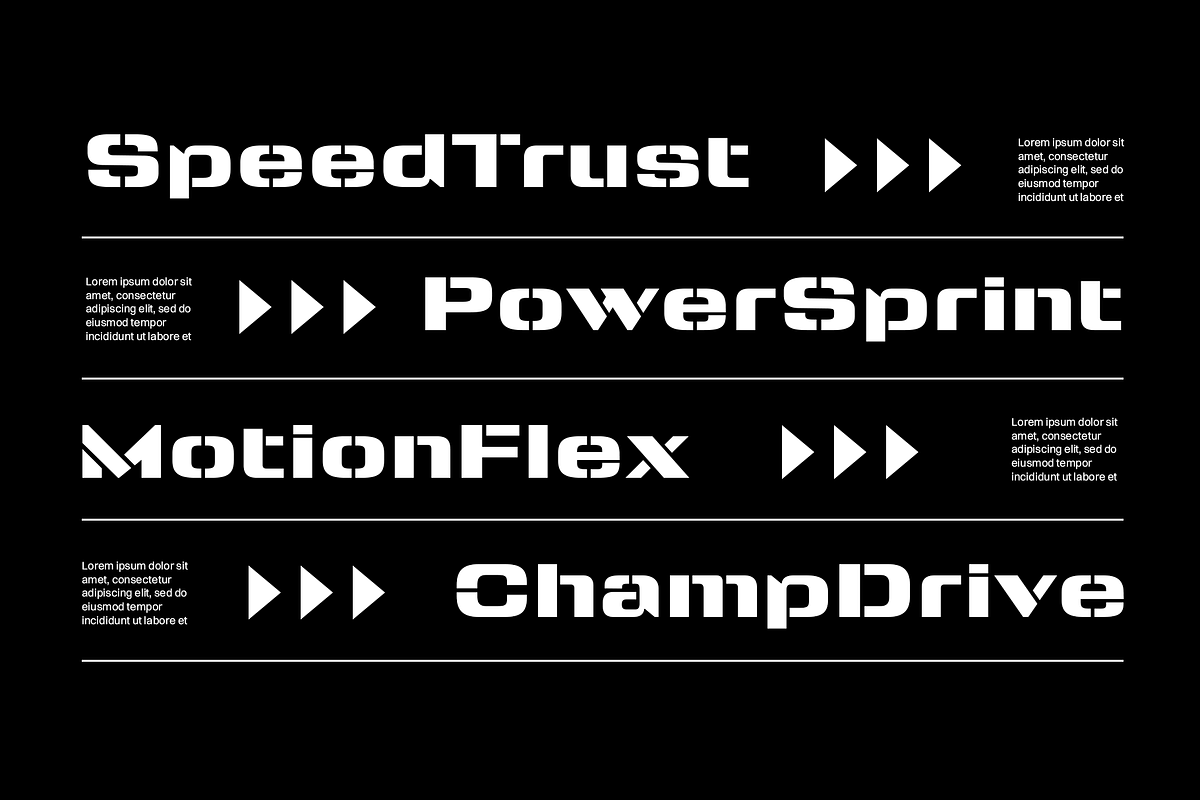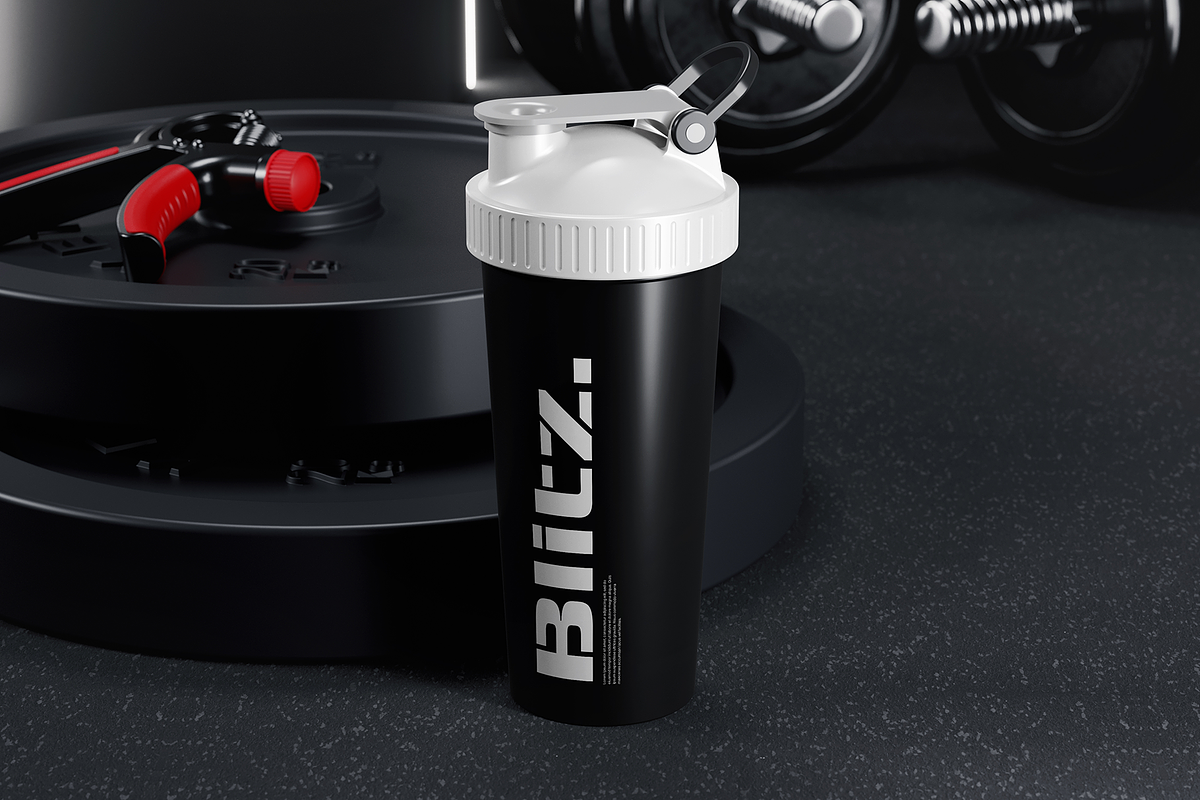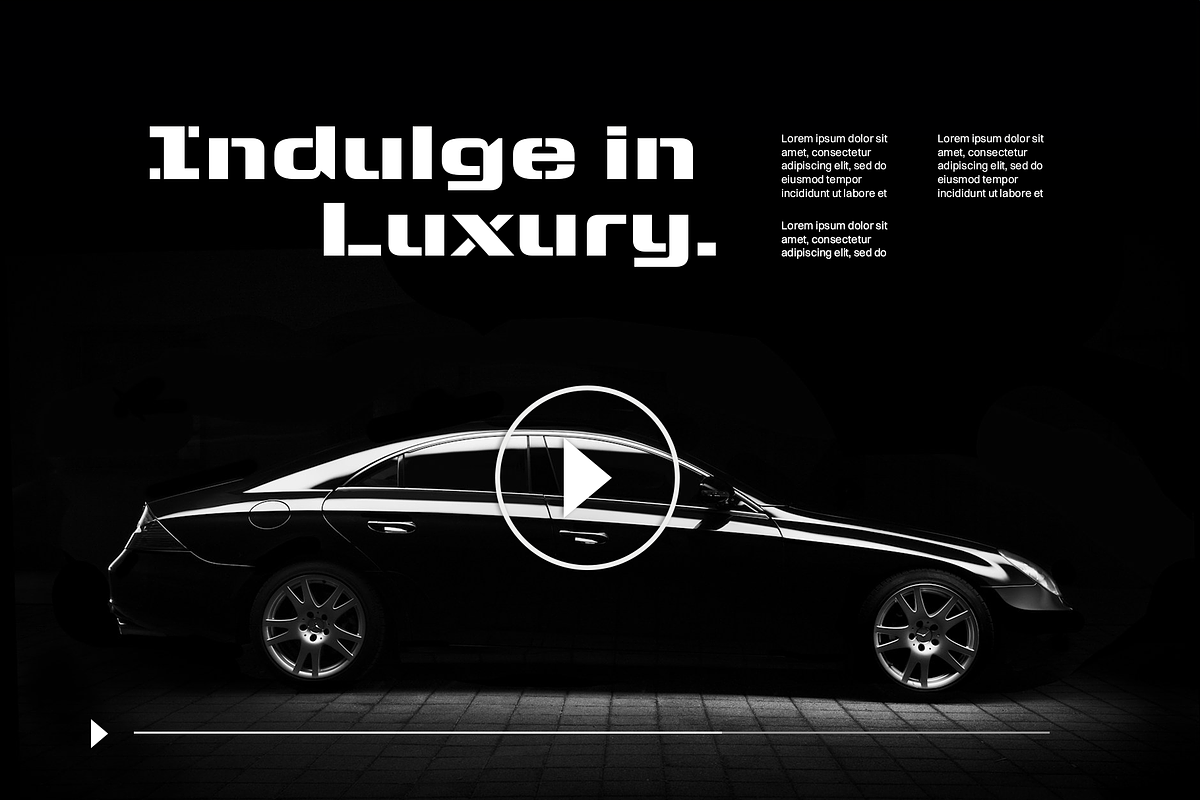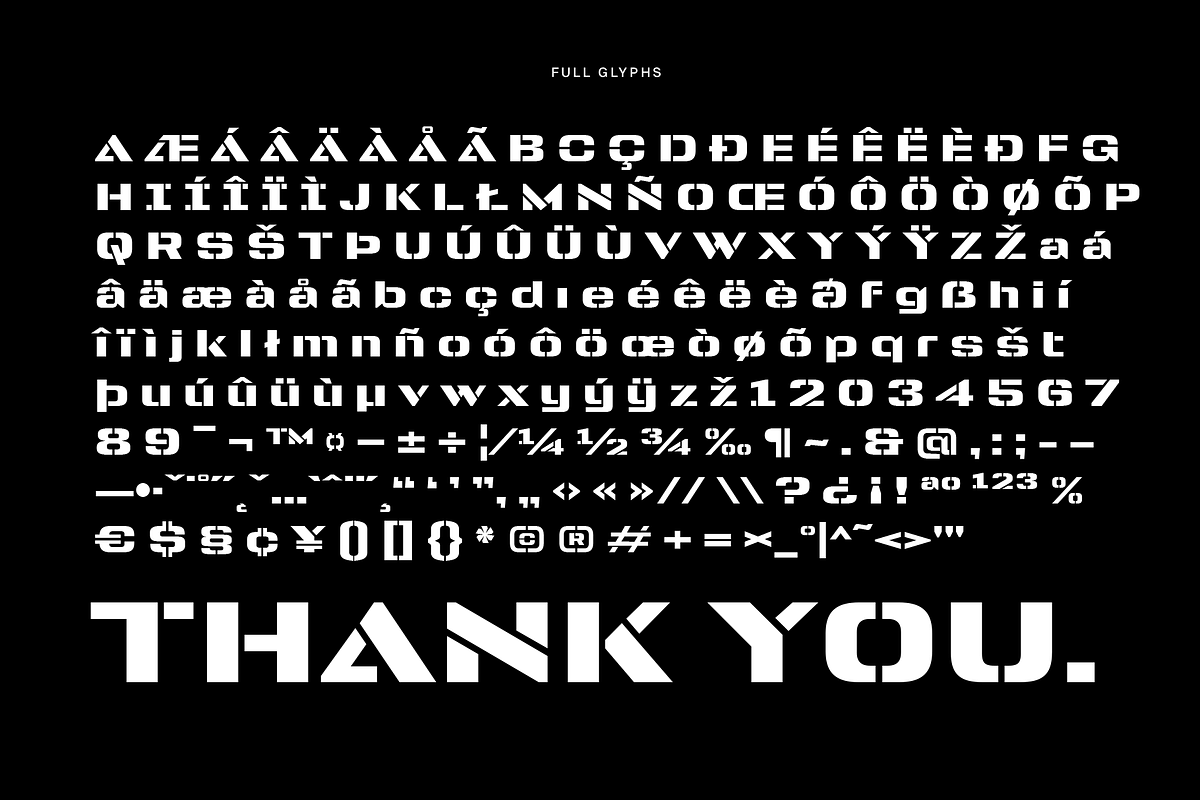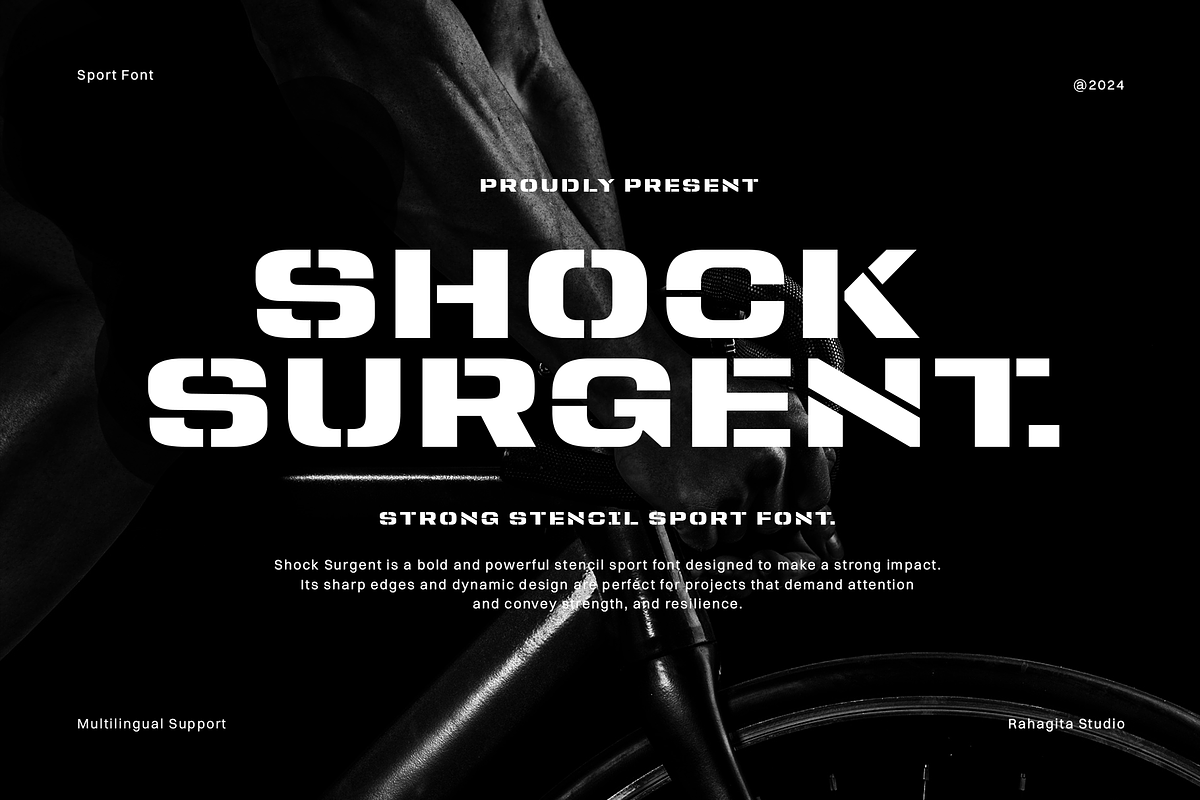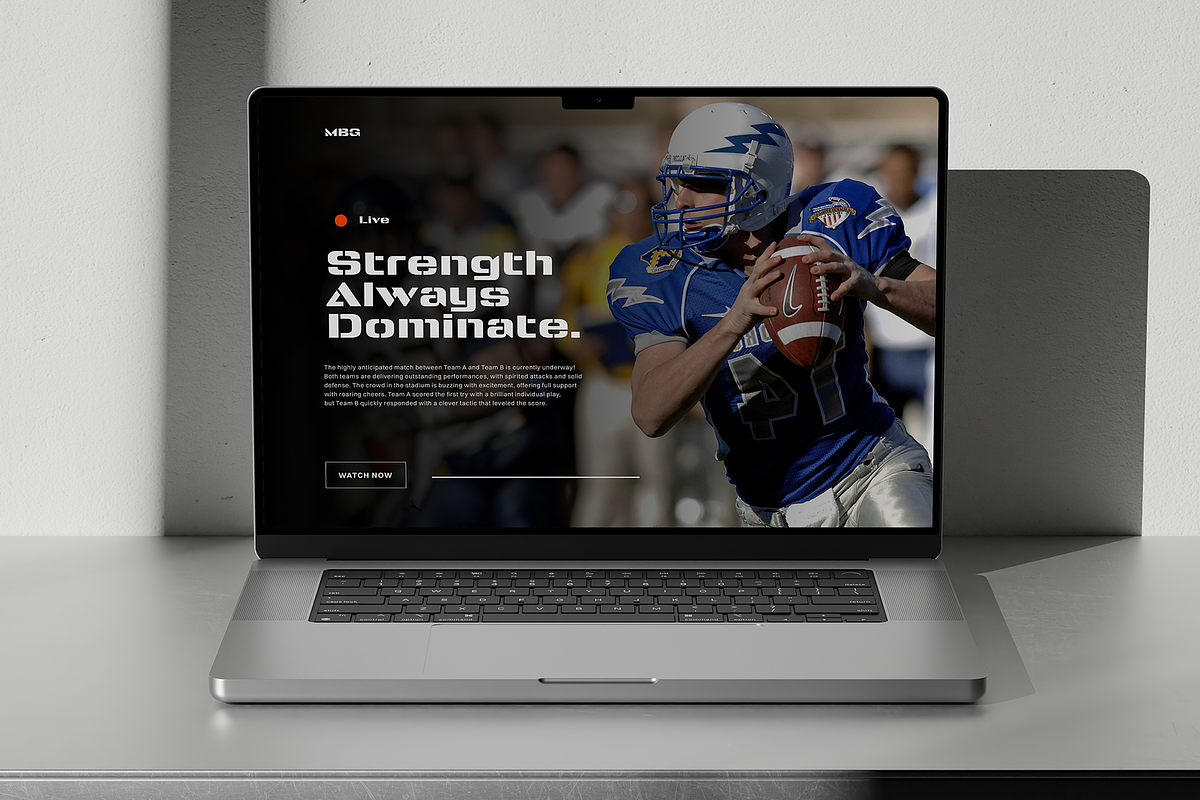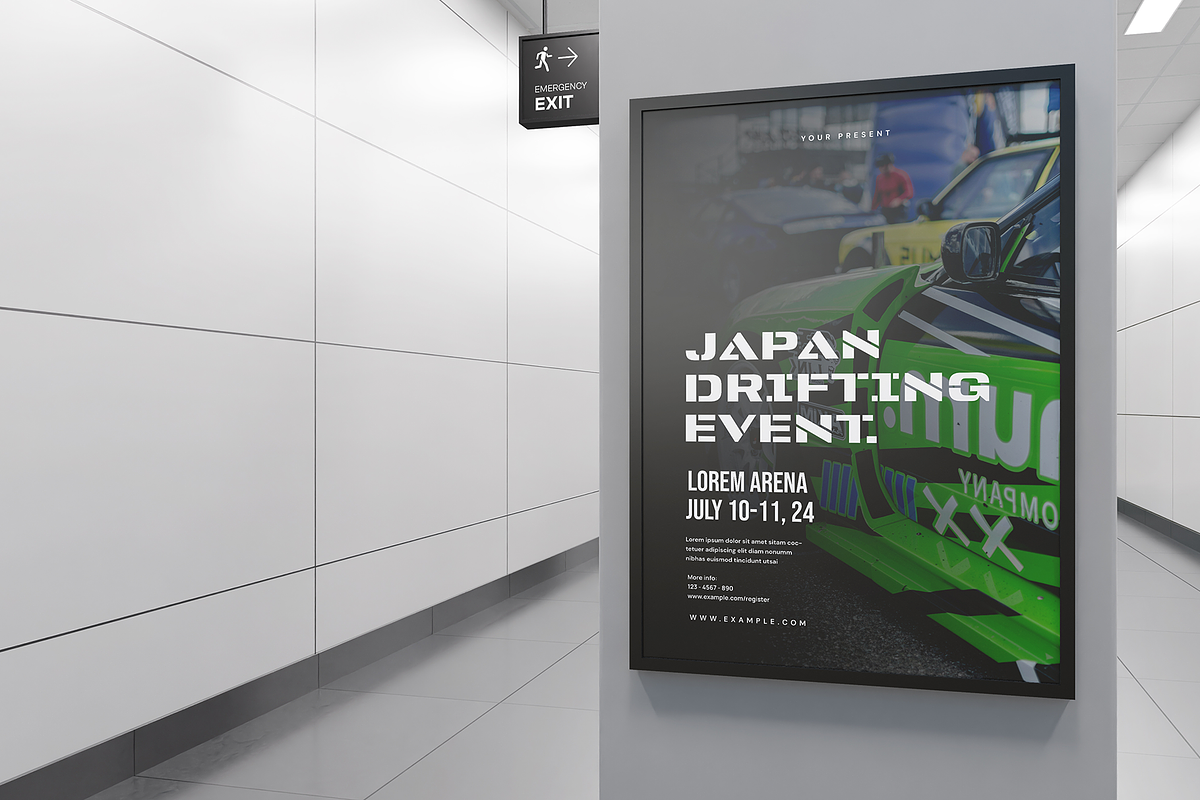
Shock Surgent
Shock Surgent is a bold and powerful stencil sport font designed to make a strong impact. Its sharp edges and dynamic design are perfect for projects that demand attention and convey strength, and resilience.